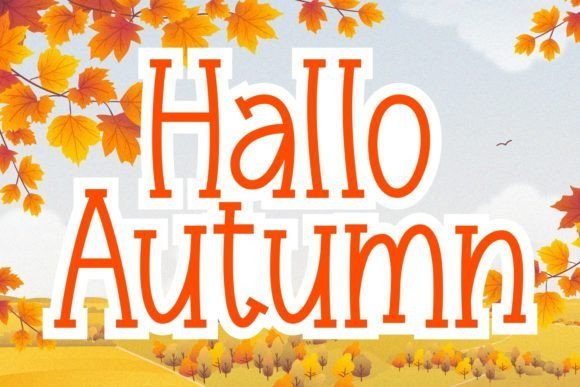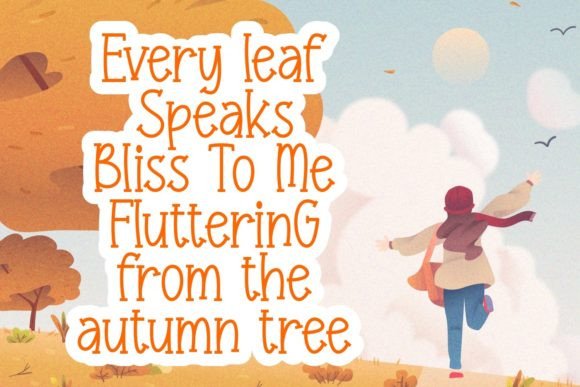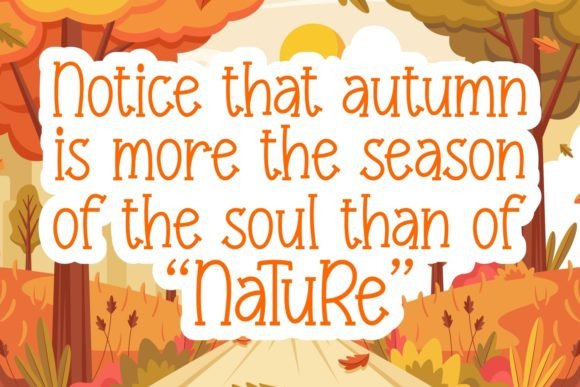
Embracing the Cozy Feel of Autumn in Your Designs
As the leaves start to change colors and the air gets crisper, many designers find themselves drawn to the warm, inviting aesthetic of autumn. For me, it’s the perfect excuse to break out the cozy sweaters and get creative. There’s something special about capturing the essence of the season in a design, and that’s where the
| 📌 Product Name | Hallo Autumn Font |
This charming serif font is designed to bring a modern twist to traditional typography. With its bouncy characters, it’s perfect for products that need easy-to-read typography without sacrificing style. Whether you’re designing a new logo, packaging, or marketing materials,
So why should you give Hallo Autumn Font a try? For one, it’s a great way to add some seasonal flair to your designs without feeling too on-the-nose. Plus, its versatility makes it a great choice for a wide range of projects.
Key Features of Hallo Autumn Font
- Unique Characteristics: The font features a unique blend of modern and traditional elements, with intricate details and ornaments that evoke a sense of autumnal nostalgia.
Hallo Autumn Font Review
Overall, I think the Hallo Autumn font is a lovely, seasonal addition to any design project. ✨ I appreciate how it captures the essence of fall with its warm, earthy tones and playful, handwritten feel.
The font is perfect for creating a cozy, inviting atmosphere, whether you’re designing a marketing campaign for a fall-themed product or simply want to add some seasonal flair to your social media graphics.
- ✨ Unique, seasonal design that’s perfect for fall-themed projects
- ✨ Warm, earthy tones that evoke a sense of coziness and comfort
- ✨ Playful, handwritten feel that adds a touch of whimsy to designs
- ⚠️ Limited versatility, as it’s primarily suited for fall-themed projects
- ⚠️ May not be suitable for formal or professional designs, as it has a more playful feel
- ⚠️ Limited character set, which may make it difficult to use for longer blocks of text
Overall, I think the Hallo Autumn font is a great addition to any design project that needs a seasonal twist. While it may have some limitations, its unique design and warm, earthy tones make it a standout choice for fall-themed projects.
Tips for Getting the Most Out of Hallo Autumn Font
Use Hallo Autumn Font for designs related to autumn, fall, or harvest themes. You can also use it for invitations, greeting cards, or social media graphics. Experiment with different font sizes, colors, and styles to create a unique look.
Hallo Autumn Font is perfect for:
- Autumn-themed invitations and greeting cards
- Fall-themed social media graphics and posters
- Harvest-themed menus and flyers
- Seasonal branding and logos